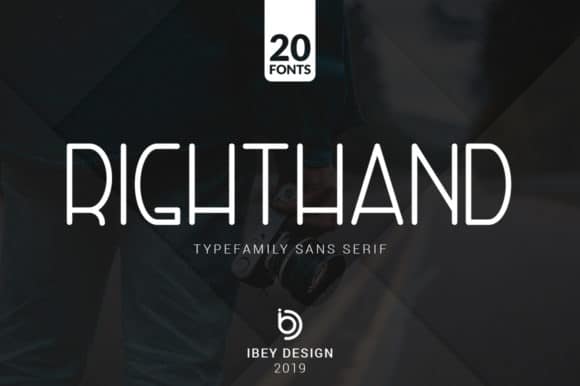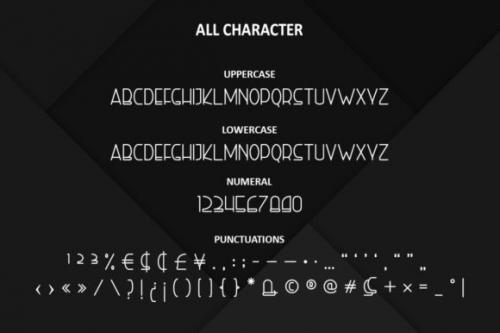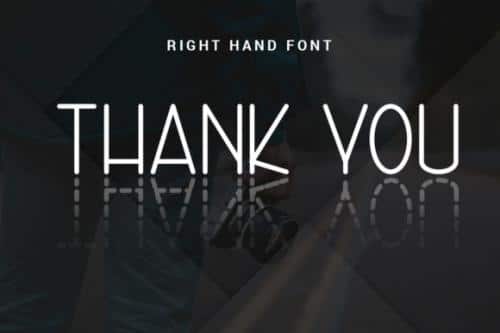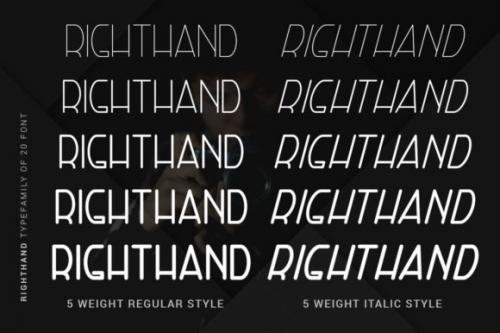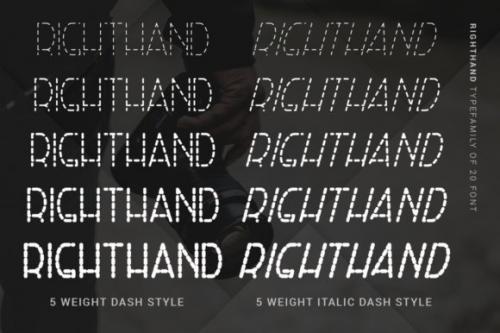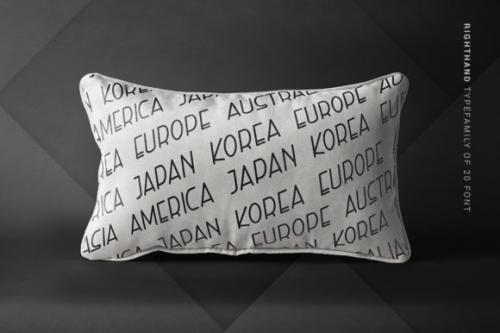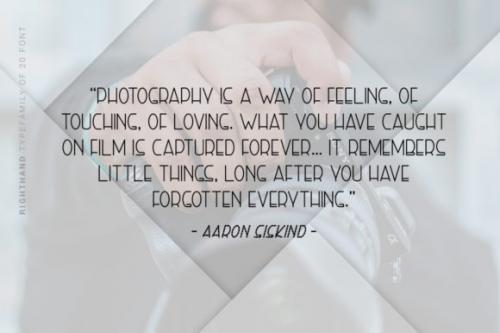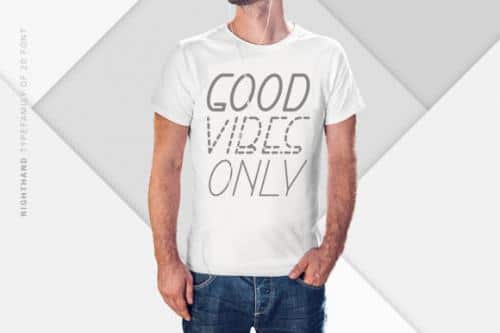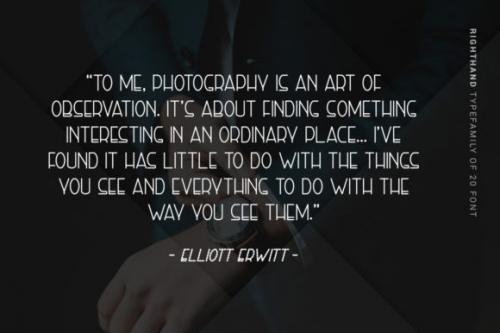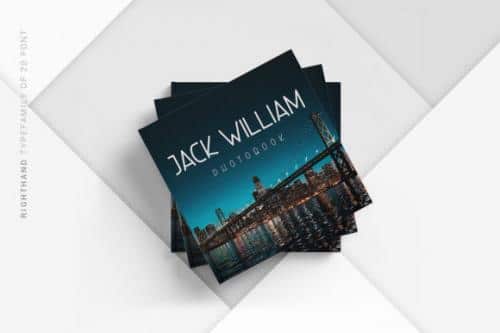
The Righthand is a modern sans serif family.
It includes 20 amazing fonts which can be used to add a powerful touch to your photography, watermarks, social media posts, advertisements, logos & branding, invitations, product designs, labels, stationery, product packaging, special events, and much more!